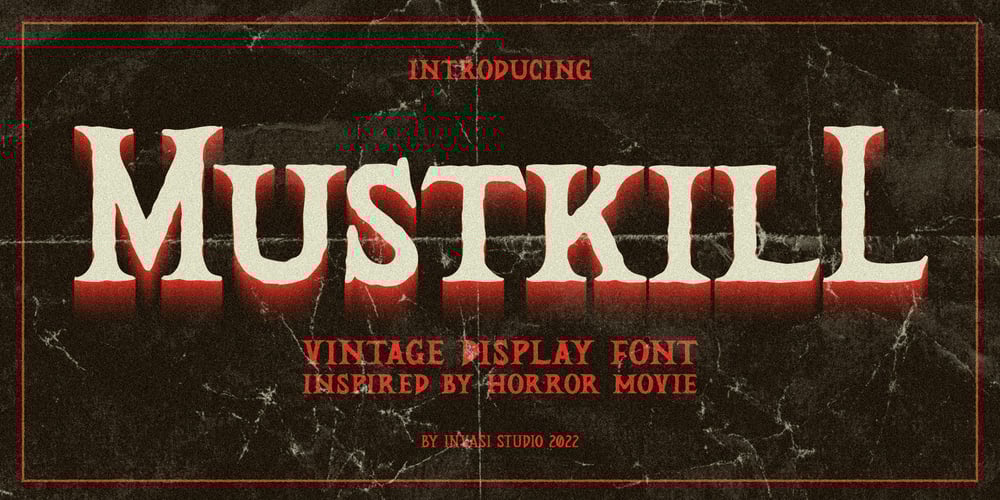
Mustkill
Mustkill font
Mustkill Font Family was designed by Gha Arizal and published by Invasi Studio. Mustkill contains 1 styles and family package options. Taking inspiration from horror movie posters. Mustkill Font comes in rough detail and uppercase style. This font comes with angry and nightmare feelings. It’s perfect for a poster, branding, logo, book cover, or Halloween promo.